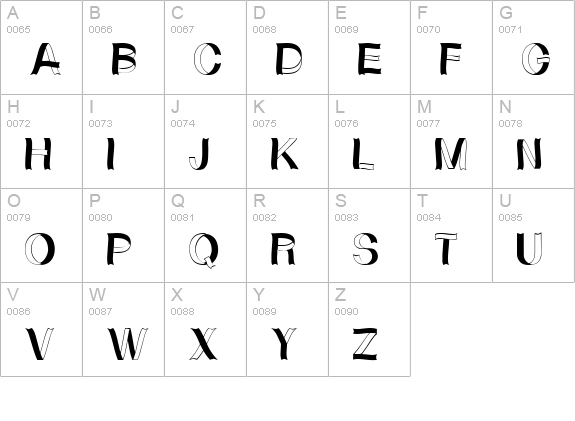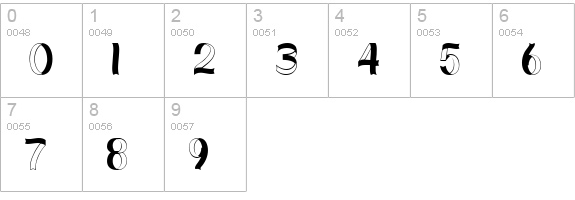
CurlyRibbons font is a whimsical and playful typeface that brings a touch of charm and elegance to any design project. With its delicate curls and ribbons, this font exudes a sense of joy and creativity. Perfect for greeting cards, invitations, and other festive designs, CurlyRibbons adds a unique and eye-catching element to your work. What's even better is that CurlyRibbons font is completely free to download at FontsMarket.com. Now you can add a touch of flair to your projects without breaking the bank. So go ahead and give your designs a fun and festive twist with CurlyRibbons font today!